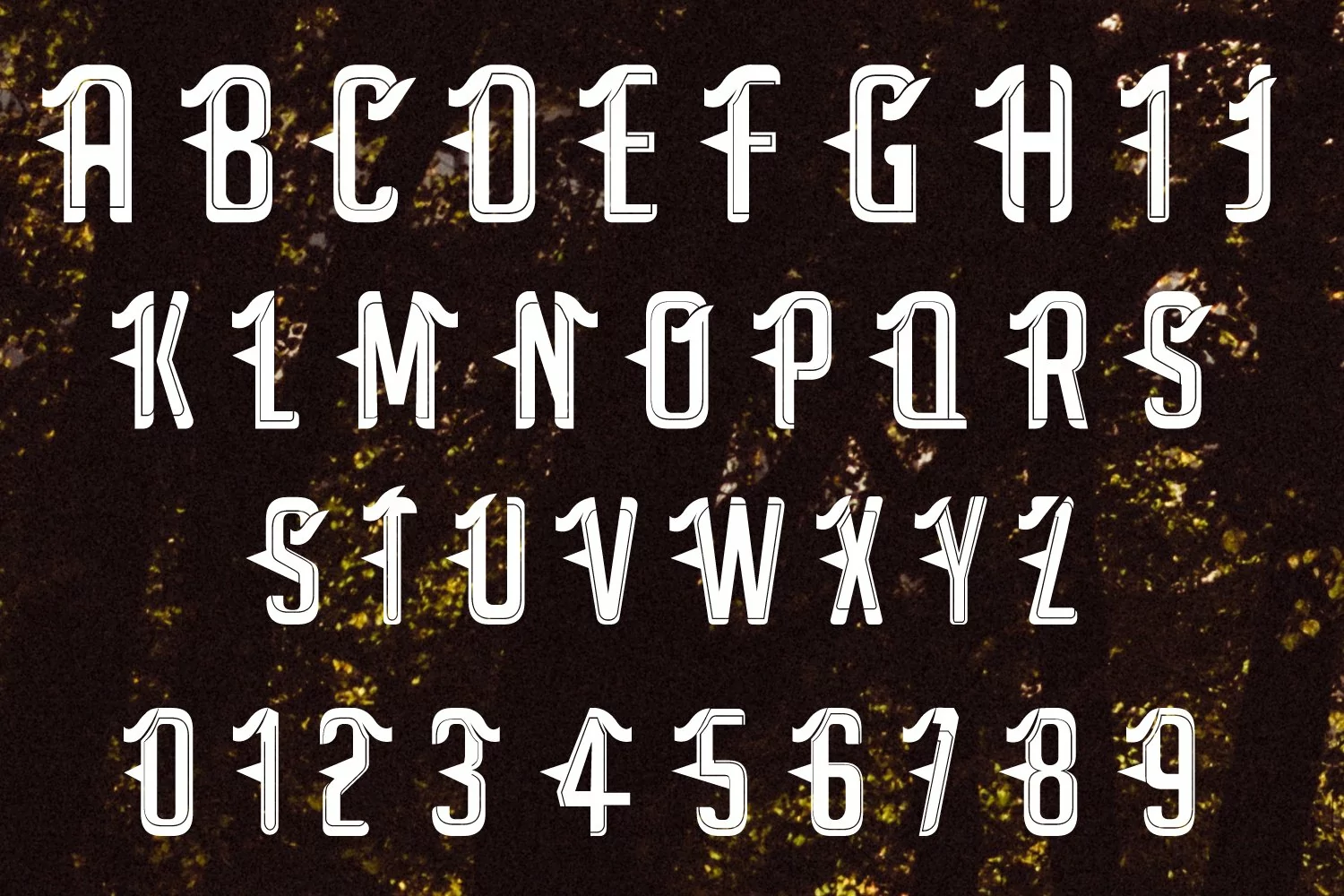
Satan - Modern Tattoo Font
Presenting one of the finest western style carefully crafted style font for labels, stamps and brand identity designs. This special font can be used for making premium products and this luxury font is all you need for the next project. Its designed in such a way that you can see the result while increase or decrease the spacing between the alphabets and it will make your design more beautiful. This one is premium font and with special discount that you can avail right now for only $10.
If you want to make something creative like beer bottle design or similar products and you need a perfect text for it then, You might want to get this cool font which can be really useful for many projects.